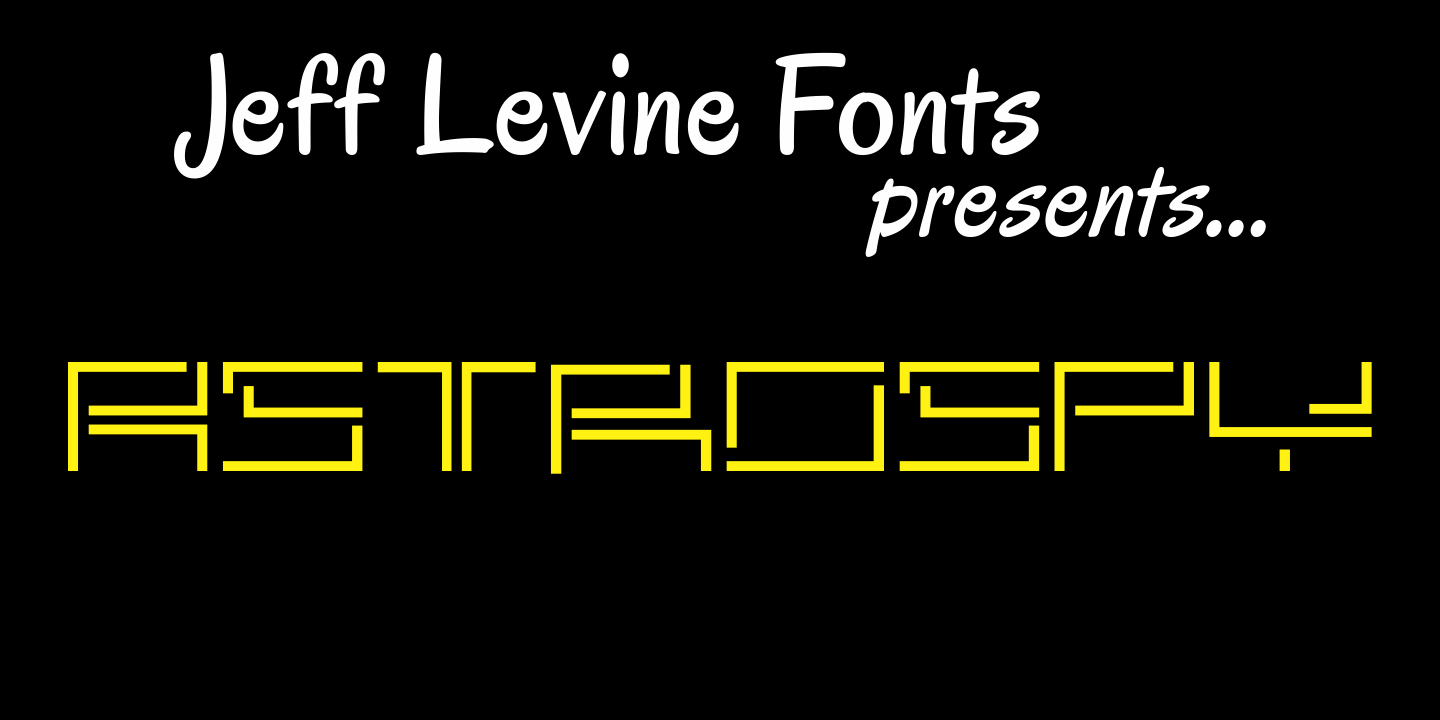
Astrospy
Astrospy JNL is a square-shaped, futuristic techno-style font from Jeff Levine. It is very well suited for short phrases, but caution should be used in setting too many words with it because of legibility issues. Best used in larger point sizes.